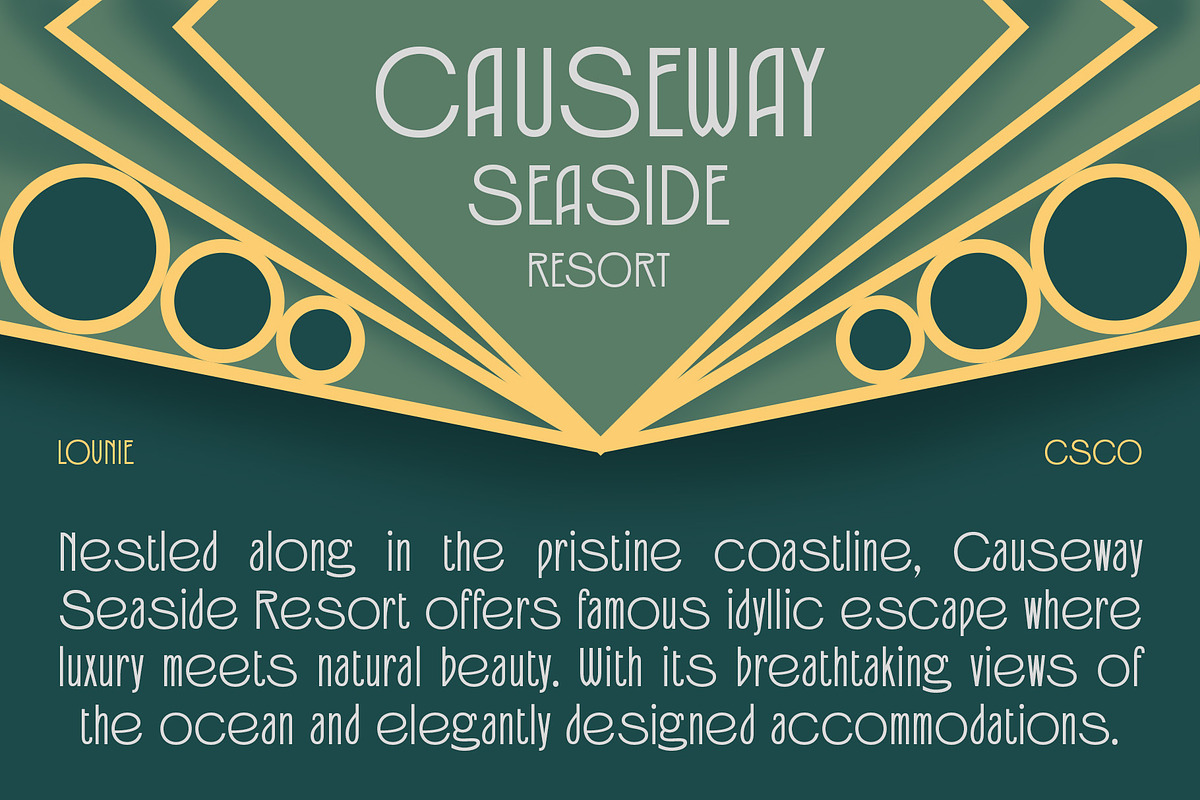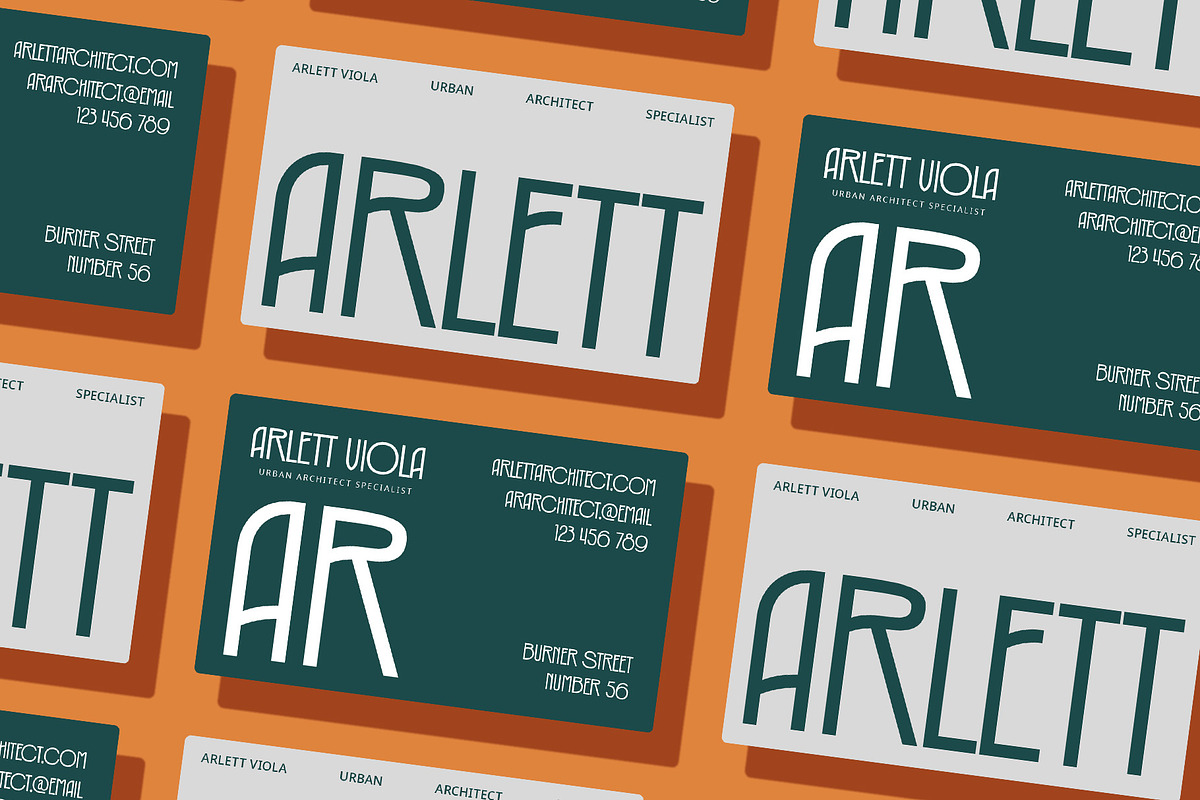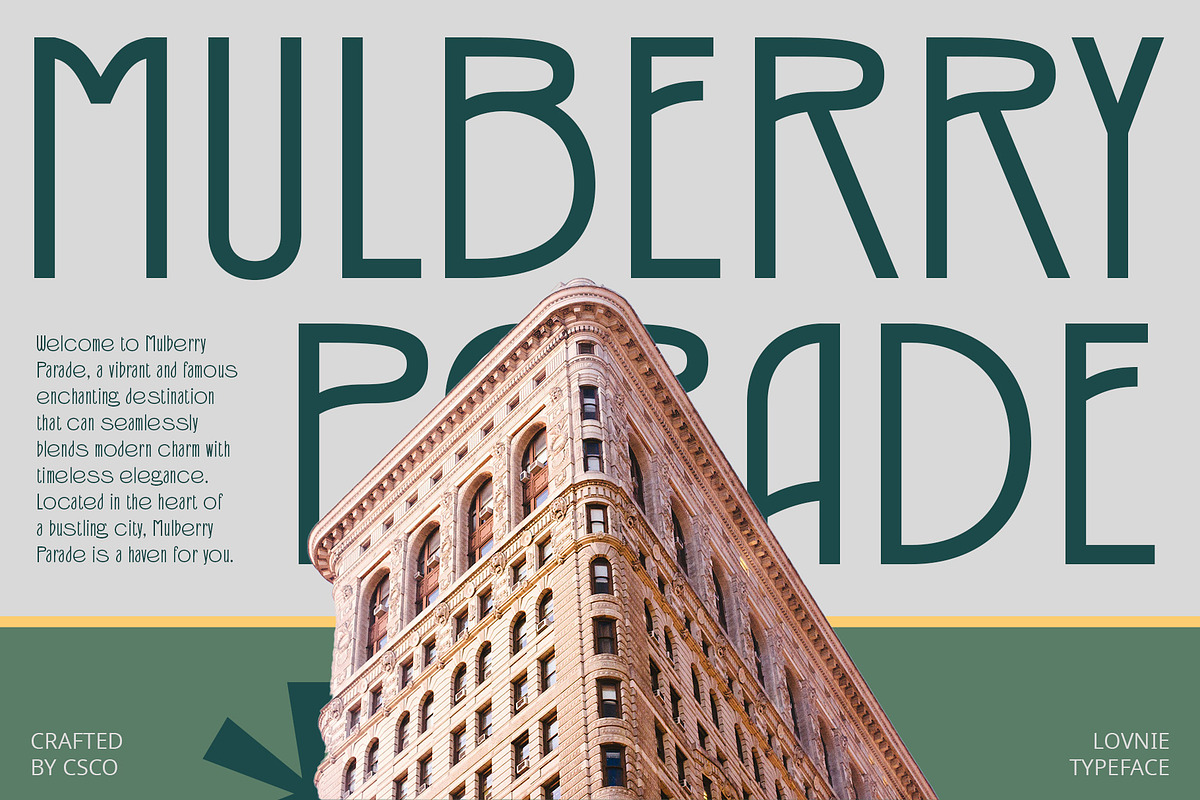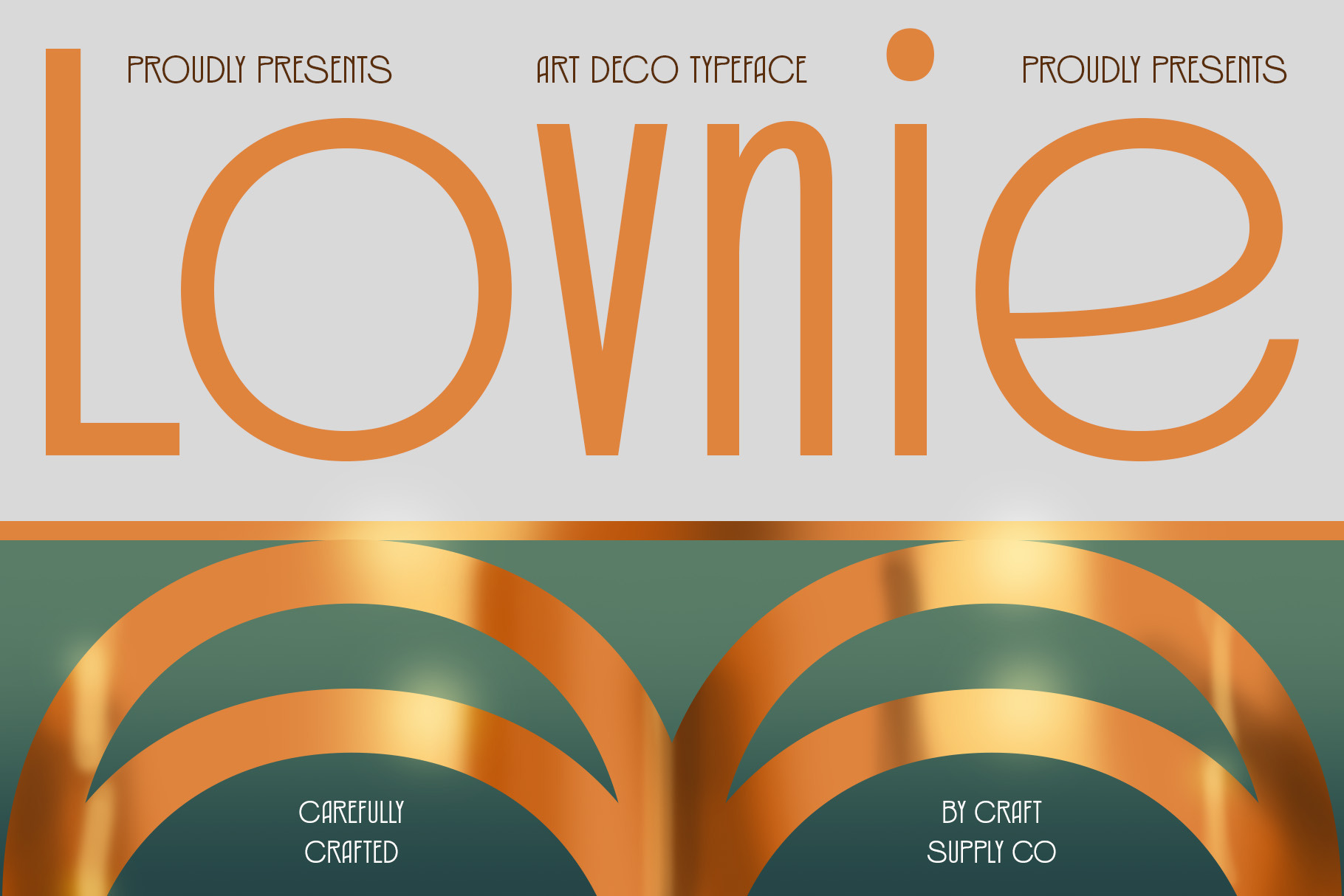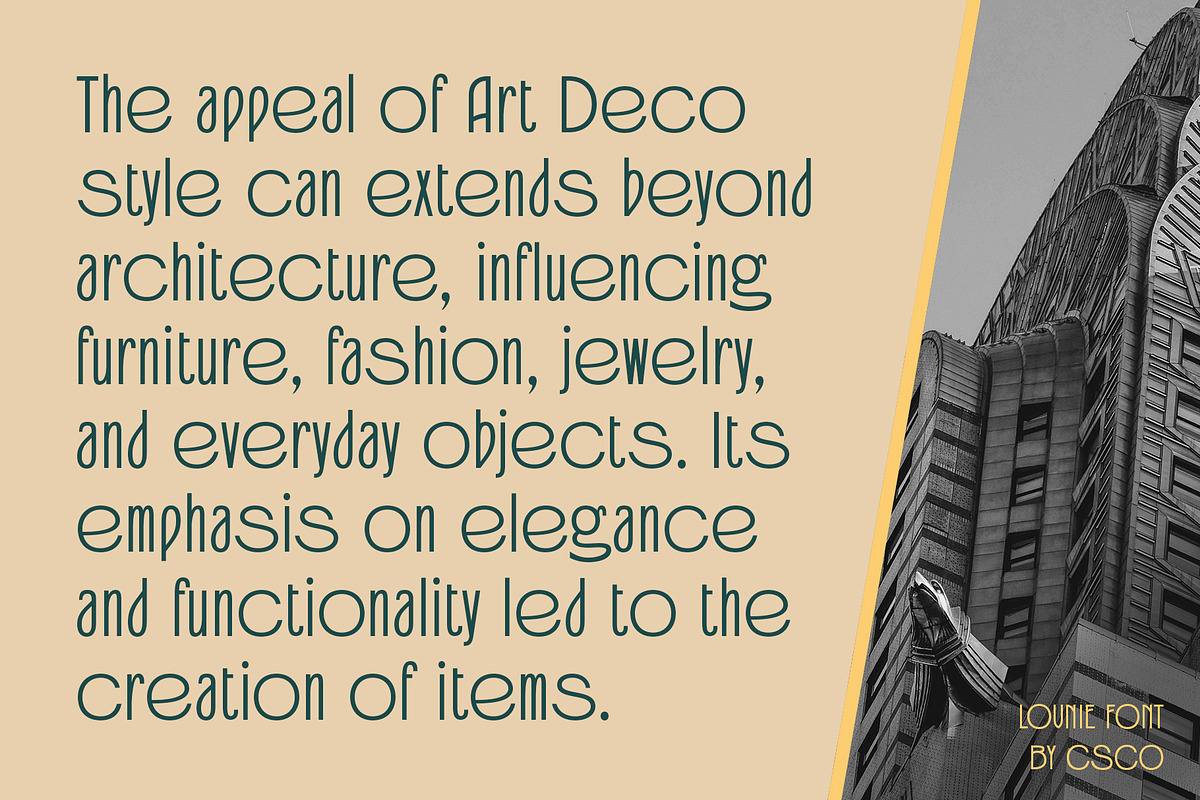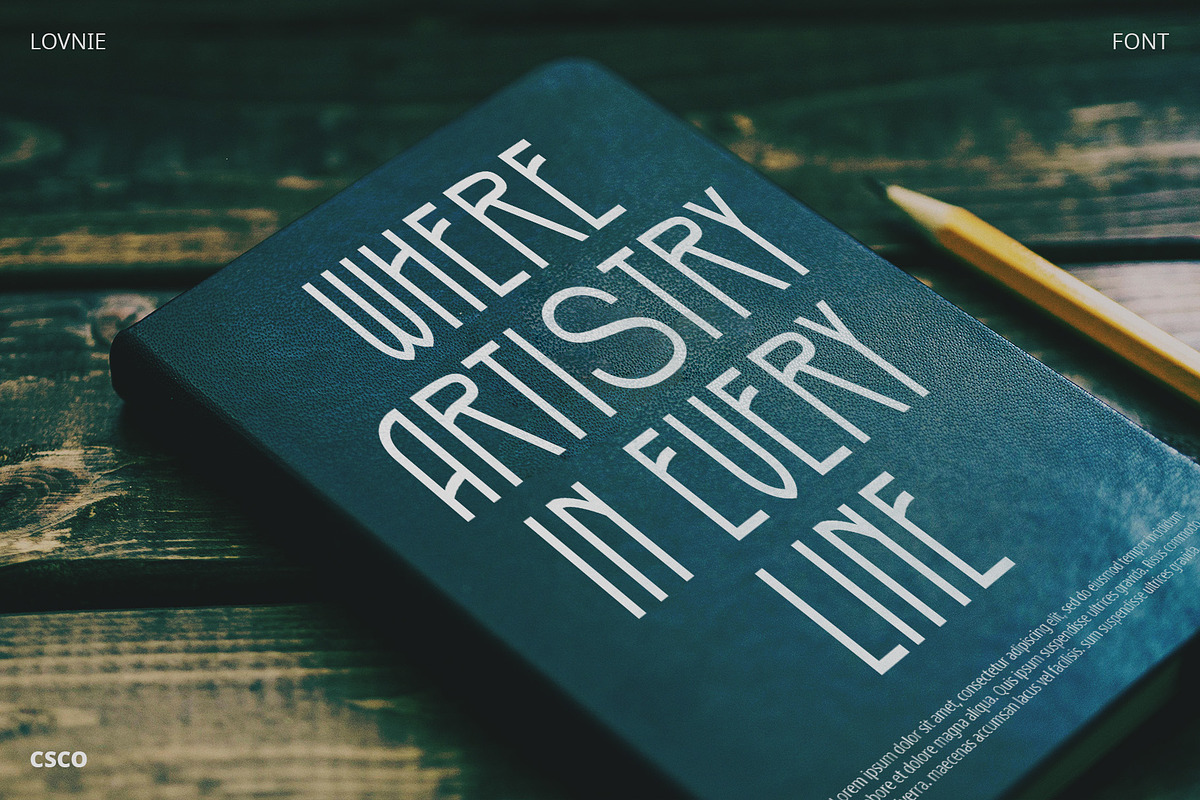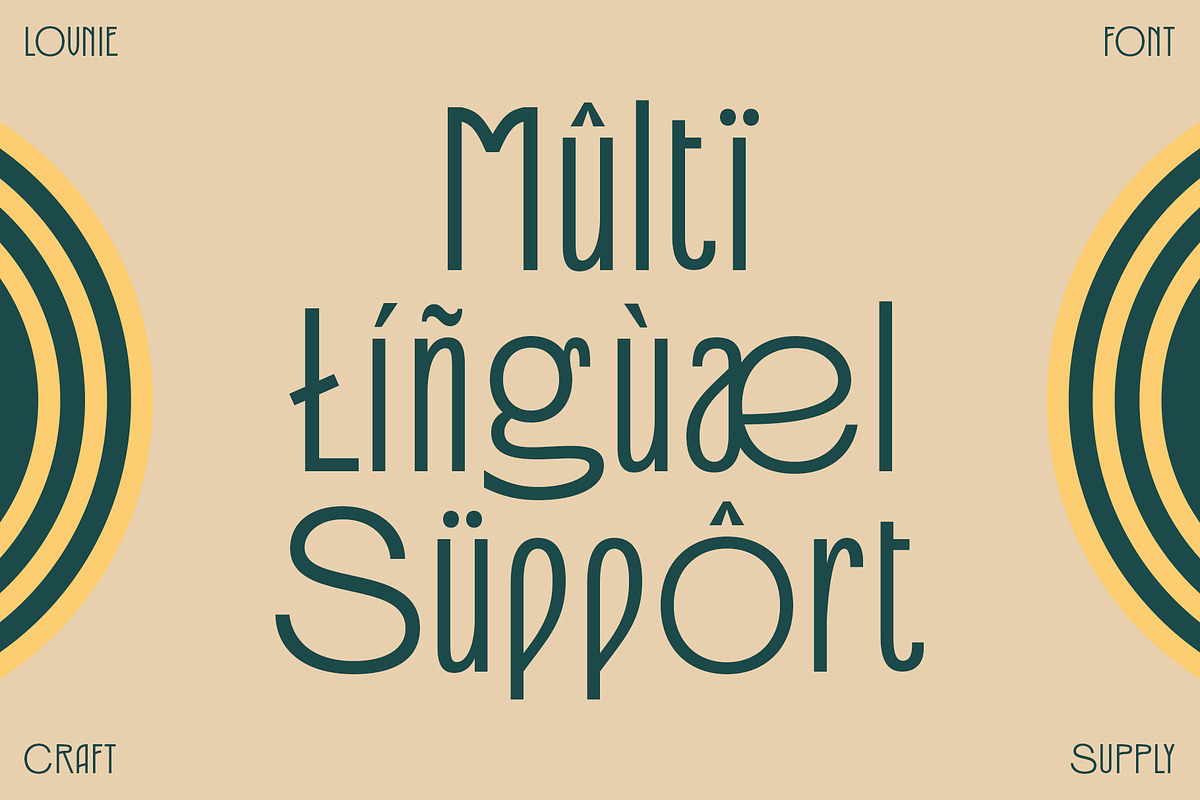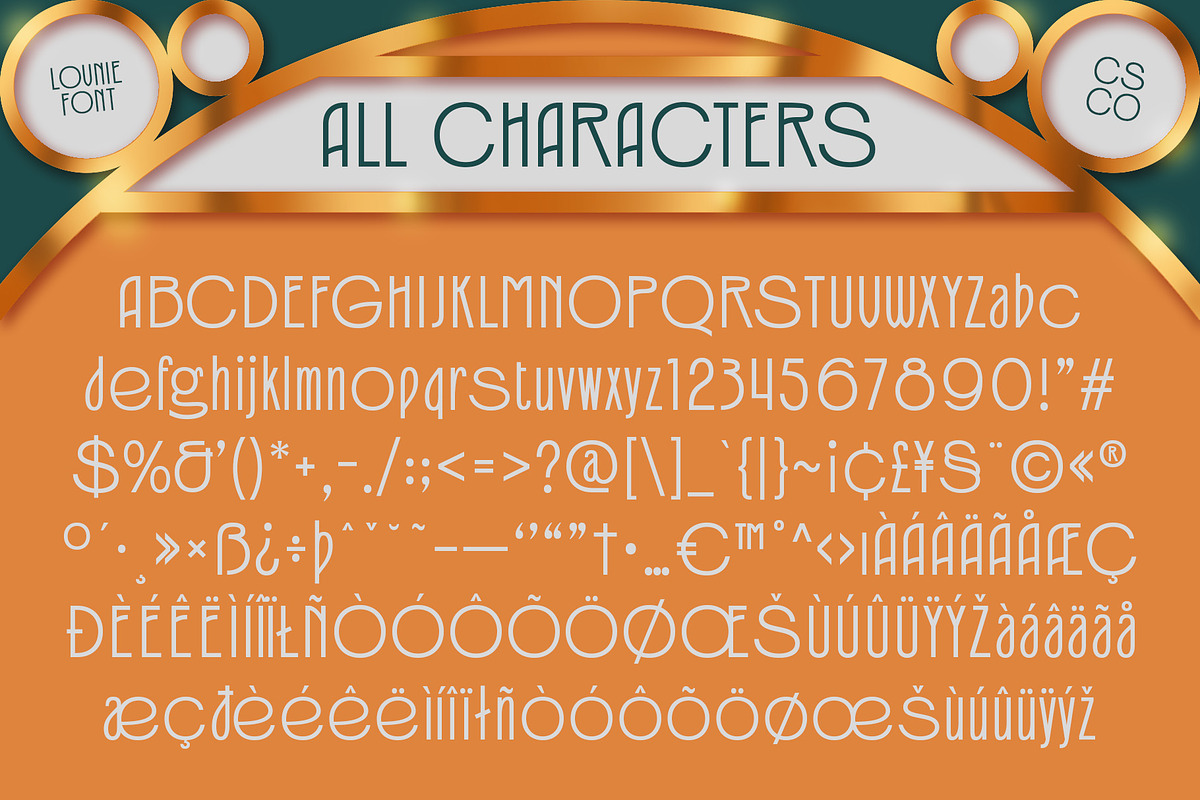
Lovnie – Art Deco Font
Lovnie – Art Deco Font: Where Elegance Meets Art Deco
Elegant Art Deco Sans Design
Lovnie – Art Deco Font is a modern sans-serif font with an Art Deco style that adds an elegant touch to every design. Its sleek lines and geometric shapes pay homage to the glamour and sophistication of the Art Deco era, making it perfect for projects that require a touch of vintage charm.
Versatile and Stylish
With its versatile design, Lovnie Font is suitable for a variety of uses, including editorial and magazine designs, interior decor, and restaurant branding. Its Art Deco-inspired details add a stylish flair to any project, ensuring that your work stands out from the crowd.
Enhanced Elegance
Lovnie Font prioritizes elegance, ensuring that your designs exude sophistication and style. Whether used in print or digital media, this font adds a touch of glamour that elevates your designs to new heights.
Perfect for Various Designs
Whether you’re working on a magazine layout, a restaurant menu, or a branding project, Lovnie Font is the perfect choice for projects that require a blend of elegance and vintage charm. Its timeless design ensures that your work will always look stylish and up-to-date.
- Lovnie Regular
- Lovnie Italic